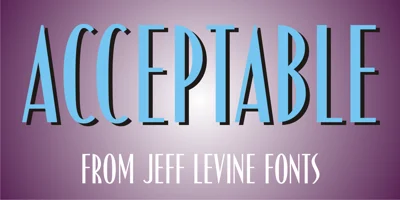
Acceptable JNL Font
The Acceptable JNL Font is perfect for vintage advertising designs, retro poster creation, classic signage projects, nostalgic branding campaigns, period-themed publications, theatrical productions, historical reproductions, antique-style logos, and traditional print materials.
What makes the Acceptable JNL Font so exciting is its authentic vintage character that transports viewers back to the golden age of American typography. This captivating typeface captures the essence of mid-20th century design with its distinctive letterforms and classic proportions. The font embodies the spirit of traditional craftsmanship while remaining perfectly suited for contemporary design applications that require a touch of nostalgic charm.
The Acceptable JNL Font family includes Regular weight with uppercase and lowercase characters, along with comprehensive punctuation marks, numerals, and essential symbols that maintain the vintage aesthetic throughout your entire design project.
Professional designers and typography enthusiasts consistently turn to Acceptable JNL Font when seeking authentic period-appropriate typefaces for their creative projects. This remarkable font excels in applications where historical accuracy and visual authenticity are paramount. The carefully preserved character details reflect the craftsmanship of traditional sign painters and commercial artists from America's golden advertising era.
The distinctive features of Acceptable JNL Font showcase classic American lettering traditions that defined an entire generation of commercial design. Each character demonstrates the hand-crafted quality that made vintage signage so memorable and effective. The font's proportions and spacing reflect the meticulous attention to detail that characterized professional lettering work of the era.
Modern designers appreciate how Acceptable JNL Font bridges the gap between historical authenticity and contemporary functionality. Whether creating restaurant menus with vintage flair, designing retro packaging, or developing period-themed marketing materials, this font delivers the genuine character that mass-produced alternatives cannot match. The typeface works exceptionally well for projects requiring that perfect balance of nostalgia and readability.
The versatility of Acceptable JNL Font extends across multiple design disciplines and applications. Film and television productions utilize this font for period-accurate title sequences and prop design. Museums and historical societies rely on its authentic character for exhibition materials and interpretive signage. Craft breweries and artisanal food companies choose it to communicate their dedication to traditional methods and quality craftsmanship.
Digital applications benefit from Acceptable JNL Font's optimized character construction, ensuring clear reproduction across various media formats. The font maintains its vintage charm whether displayed on modern high-resolution screens or reproduced in traditional print materials. This technical reliability makes it an excellent choice for multi-platform branding campaigns.
The cultural significance of Acceptable JNL Font resonates with audiences who appreciate authentic design heritage. The typeface serves as a visual bridge connecting contemporary brands with the trusted craftsmanship values of previous generations. This emotional connection helps businesses establish credibility and differentiate themselves in competitive markets.
Collectors of vintage typography and design historians recognize Acceptable JNL Font as a faithful representation of American lettering traditions. The font preserves important typographic heritage while making it accessible to modern designers who seek to honor classic design principles in their contemporary work.